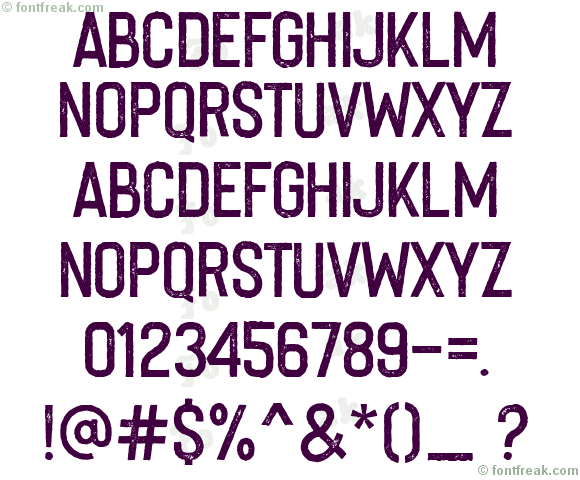
ImperfectaRough
About ImperfectaRough
ImperfectaRough by 50Fox Studio is a captivating display font that embodies a rugged charm, perfect for those seeking a unique typographic style. As a part of the Freeware license category, this font offers an accessible option for various creative projects. The font features a strong, bold stroke weight with an intentionally distressed finish, giving it a hand-crafted appearance that stands out. This visual characteristic adds an element of authenticity and warmth, making it ideal for designs that aim to evoke a sense of personality and character.
The spacing in ImperfectaRough is well-balanced, ensuring readability while maintaining its artistic flair. Decorative elements are subtly integrated into the letterforms, enhancing the overall aesthetic without overwhelming the viewer. This makes it a versatile choice for a range of applications. Best suited for use cases such as wedding invitations, where a rustic yet elegant feel is desired, movie posters that require a bold statement, restaurant menus that aim to convey a casual vibe, or promotional materials for artisanal products, ImperfectaRough delivers an impactful visual message.
The target audience for this font includes graphic designers, small business owners, and content creators looking to add a distinctive touch to their projects. Whether crafting a brand identity or designing eye-catching social media graphics, ImperfectaRough provides the perfect solution for those aiming to stand out in a crowded market.